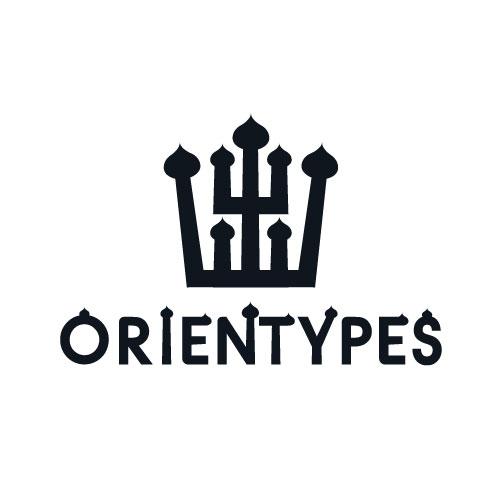
Orientypes Font Description
Orientypes is simple, minimalist and has a slight hint of Asian style design.
The Orientypes typeface has been inspired by a stunning gold crown from the ancient Korean kingdom, Silla. The font is very suitable for various designs projects like logos, taglines, clothing & apparel, labels, posted and all large display text.